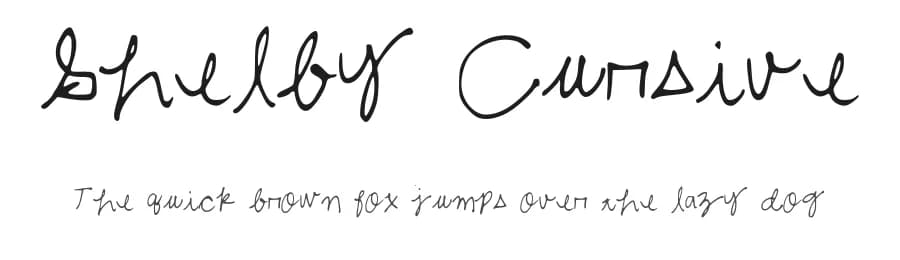
About Shelby Cursive Font
Shelby Cursive is a script & handwritten font designed by Shelby Porter. It includes 143 glyphs, a medium weight, TTF (TrueType) format, and 133 languages. Shelby Cursive is free to download; check the license details on this page before commercial use. Script & handwritten fonts like Shelby Cursive work best for wedding invitations, greeting cards, signatures, and elegant branding.
Shelby Cursive Font is a script font that shines as a display or heading face. Pair it with a clean sans-serif or serif font for body text β the contrast creates a clear hierarchy while the two styles stay balanced and easy to read.
Shelby Cursive Font is a script handwritten typeface by Shelby Porter, ideal for logos, invitations, branding, and creative projects.